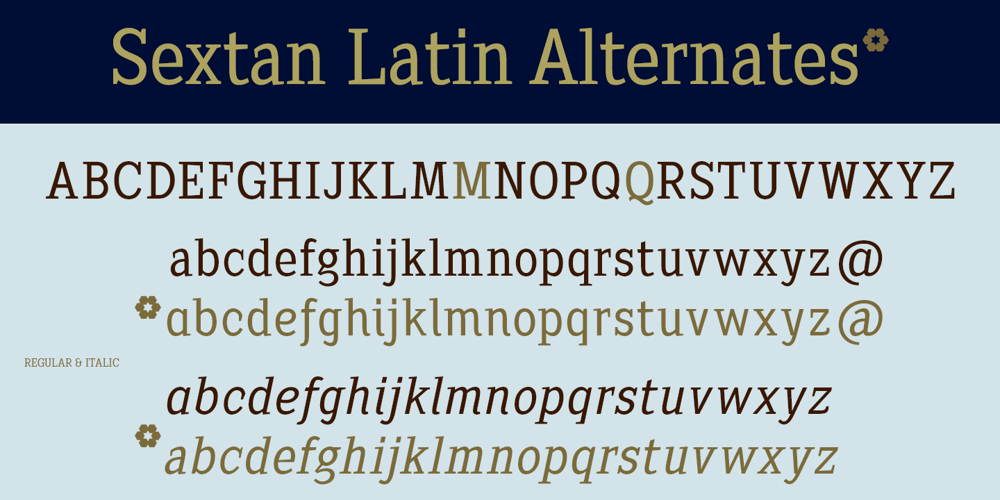
Sextan Cyrillic
Sextan Cyrillic font
Sextan Cyrillic Font Family was designed by Fernando Haro and published by deFharo. Sextan Cyrillic contains 10 styles and family package options. Sextan serif is a Cyrillic typeface family with 10 styles designed for editorial, corporate, advertising or web use. The excellent readability allows the use in long texts, the coherence of forms make these fonts have a great personality. The fonts have an extra set of lower case letters accessible through the Discretional Ligatures. Also support for Open Type Functions such as Old Style Number, Superiors, Inferiors, Dynamic Fractions, etc. Includes the Bitcoin symbol: b #